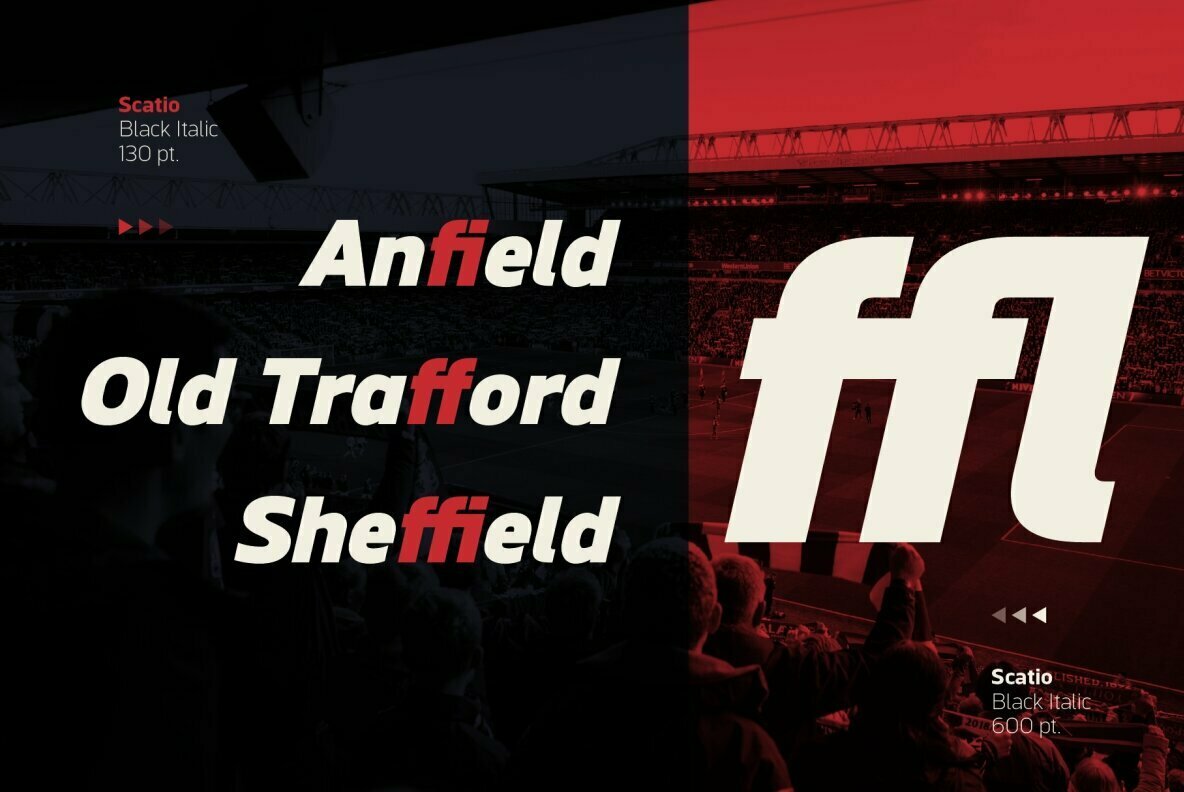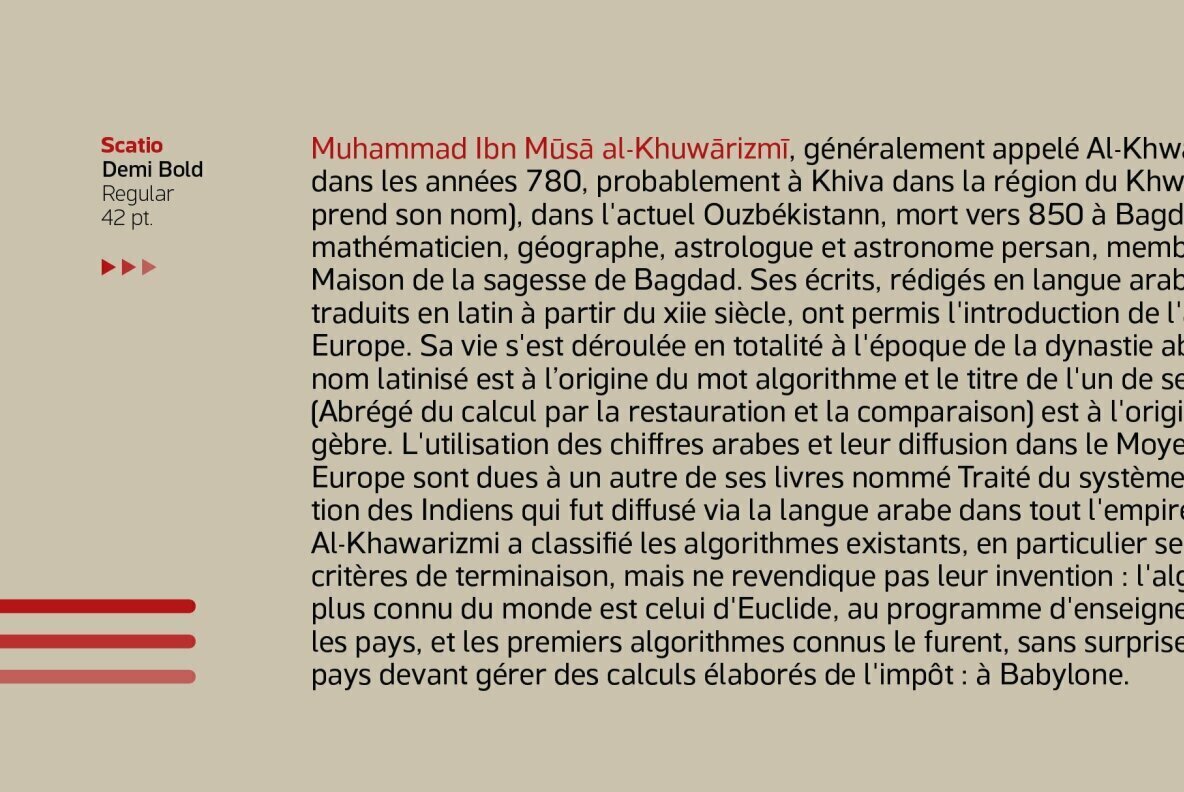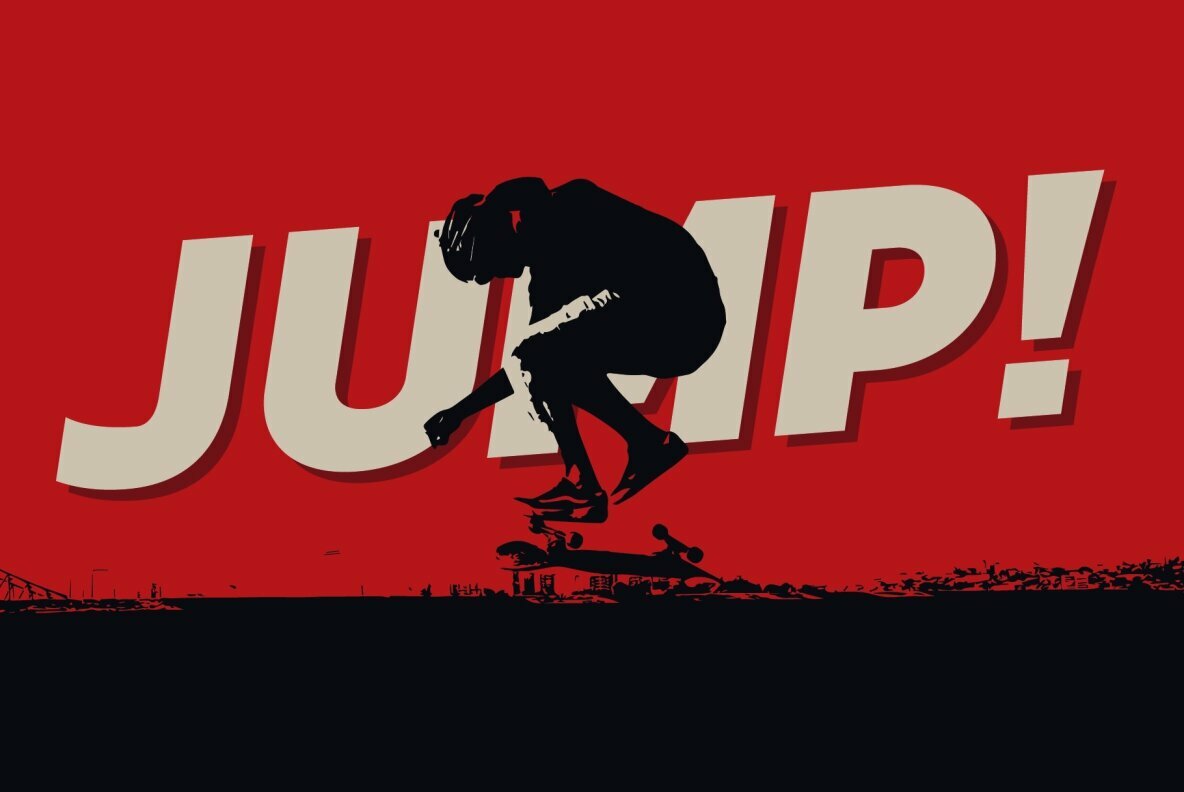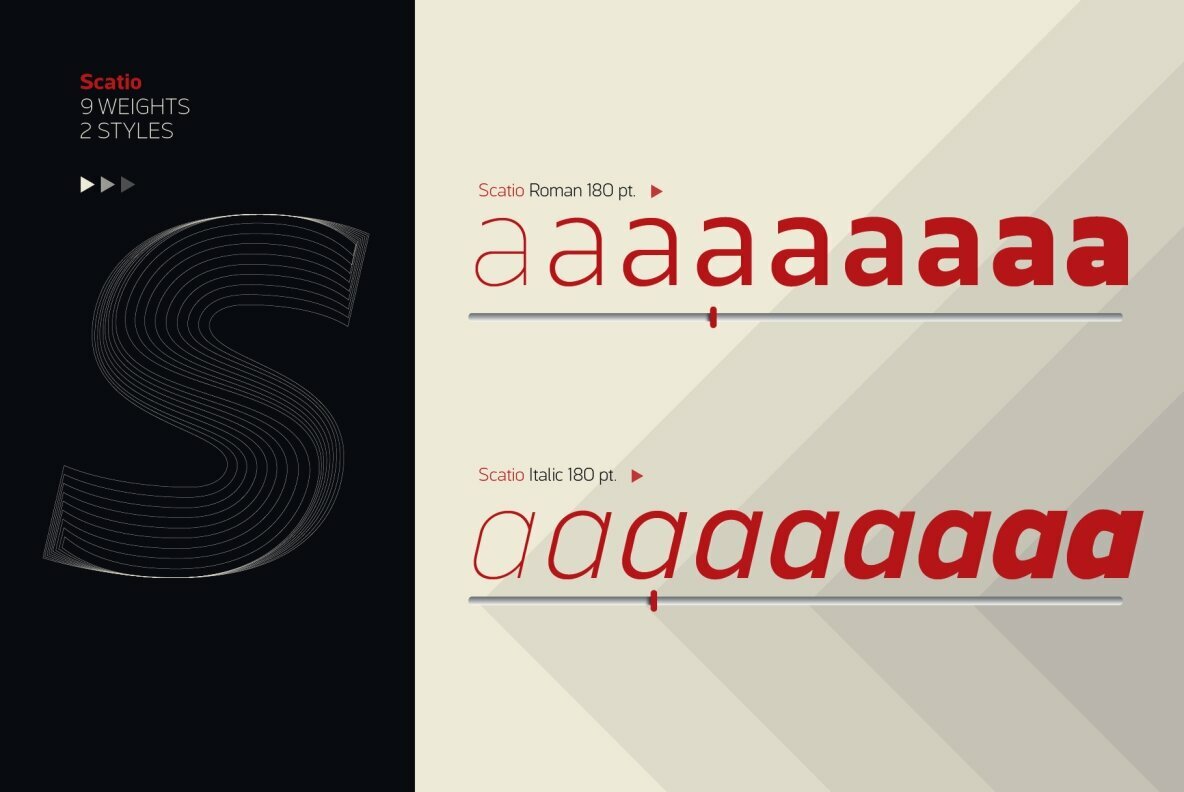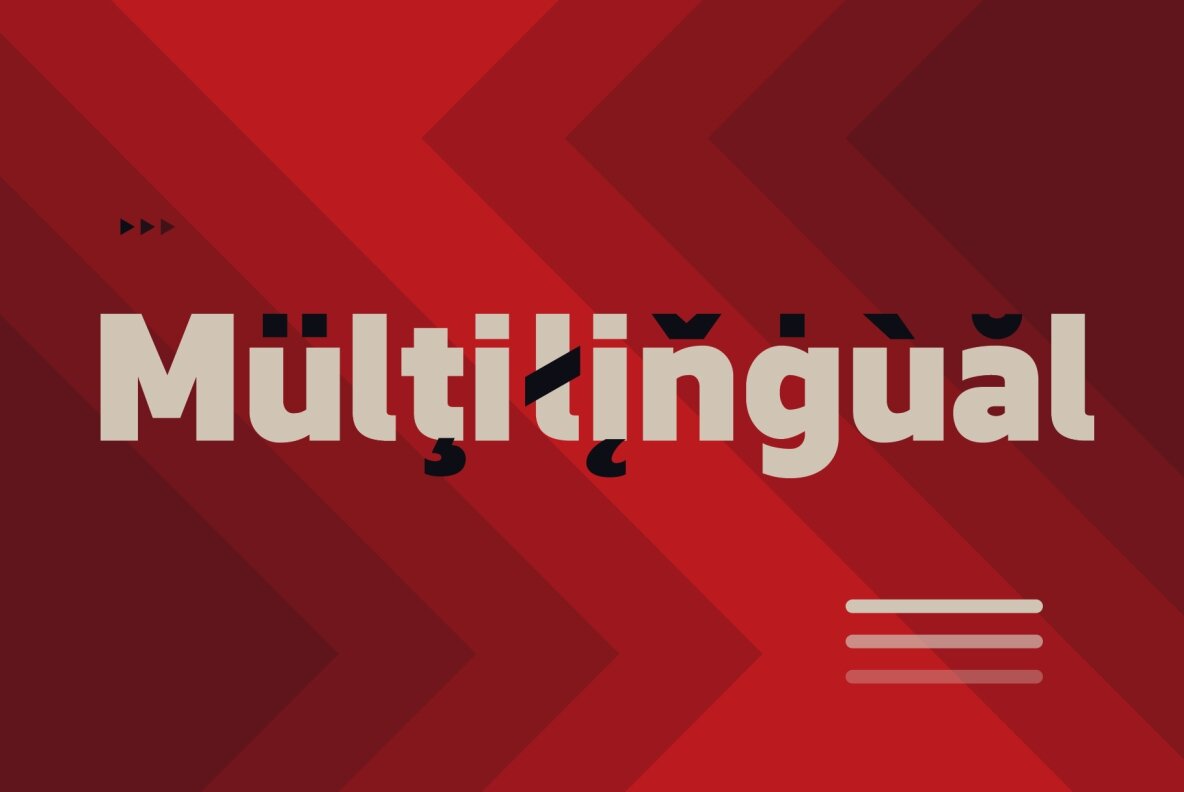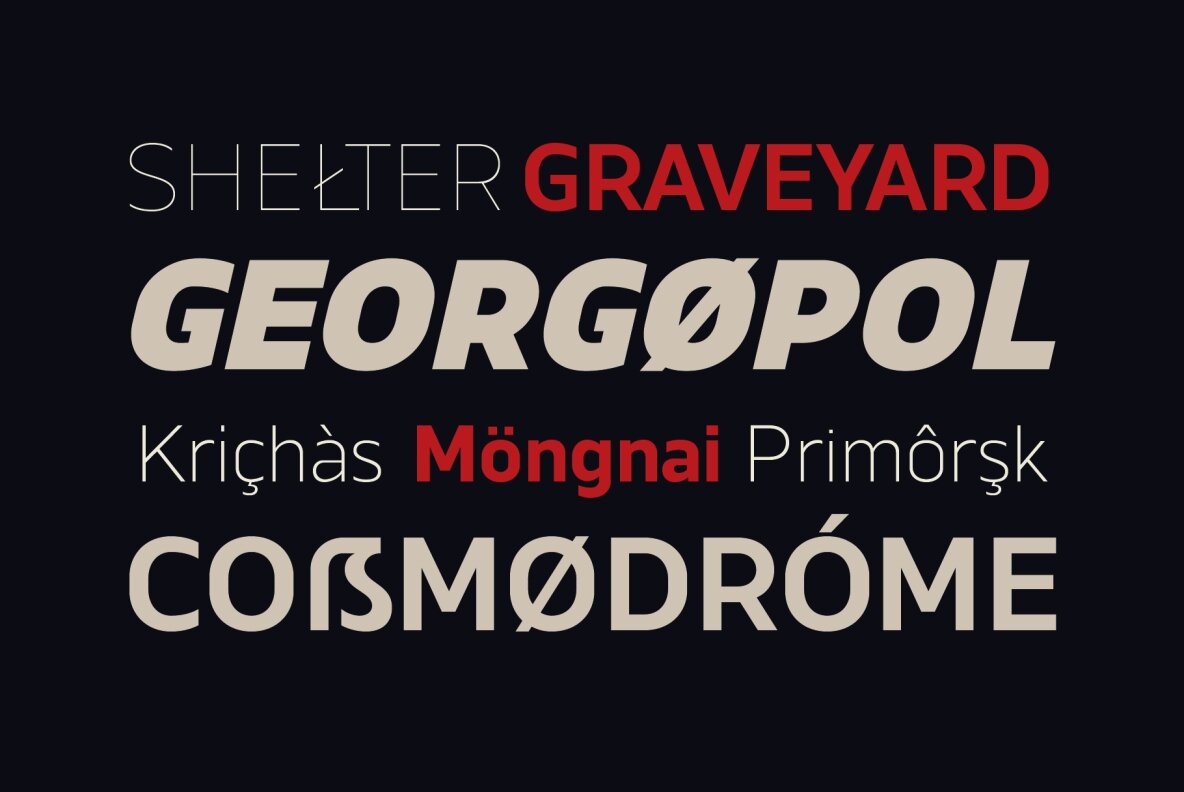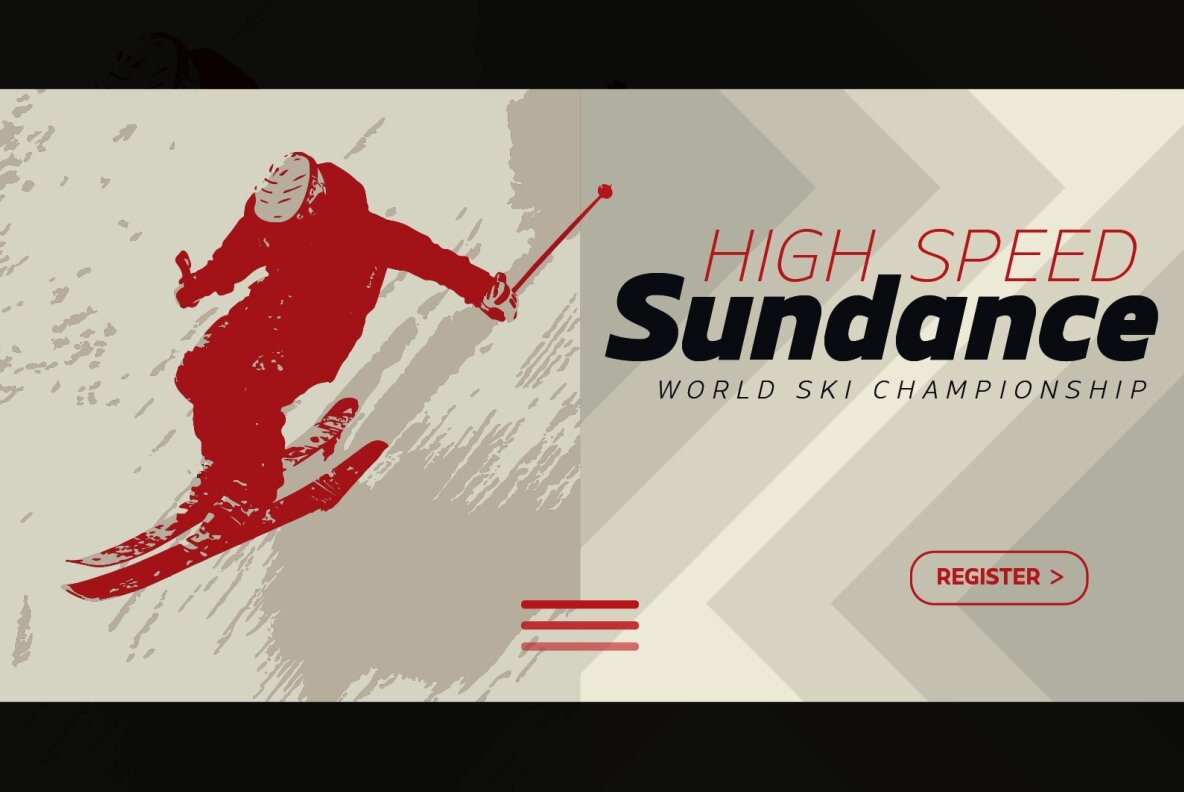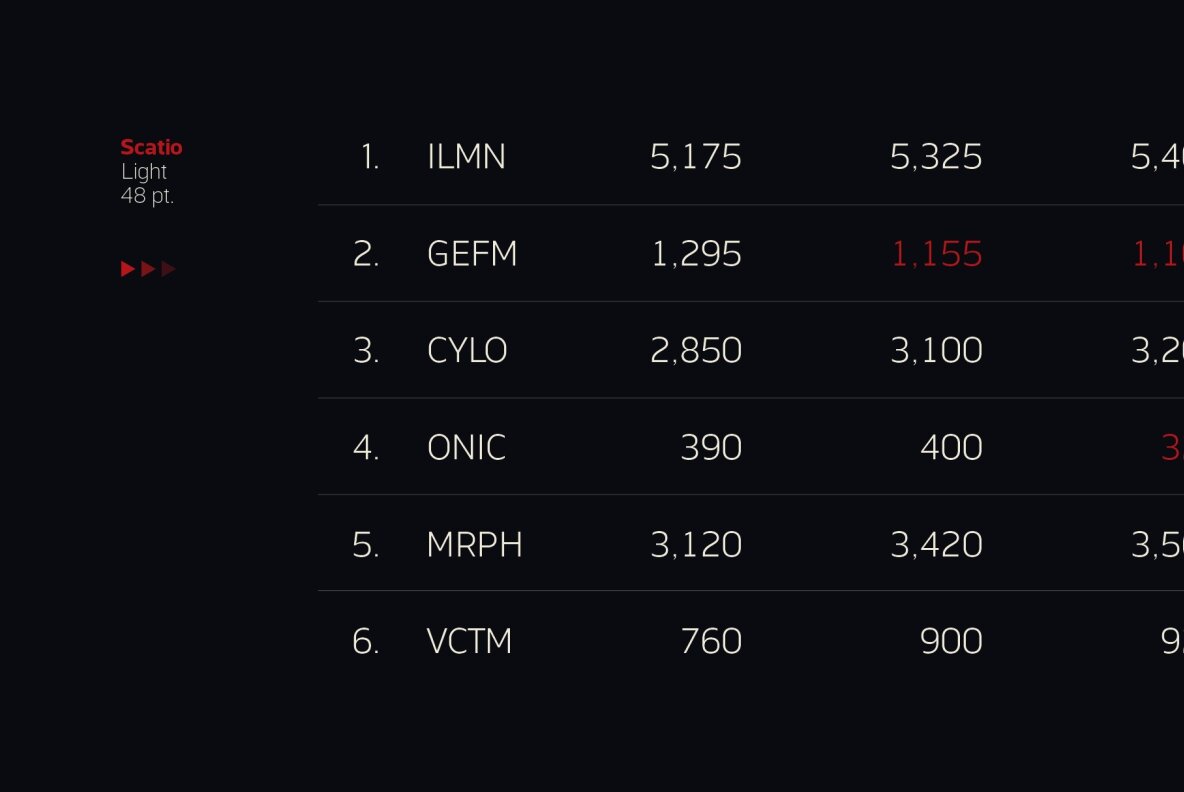
Scatio Font
Scatio is a multi-purpose sans serif with vertical terminal cut which can be use for many kind of graphic design projects. The Light, Regular and Medium weight have good legibility for text, the bolder and lighter weights can be used for headlines, display, posters, and more.
Each members of the Scatio family contains 400+ glyphs which covers Western and Eastern Latin based languages. Each font is also equipped with some useful OpenType Features, such as:
- Fraction (frac)
- Numerator (numr)
- Denominator(dnom)
- Standard Ligatures (liga)
- Localized Forms (locl)
- Ordinals (ordn)
- Proportional and Tabular Lining (pnum & tnum)
- Superscript and Subscript (sups & subs)
- Scientific Inferior (sinf)